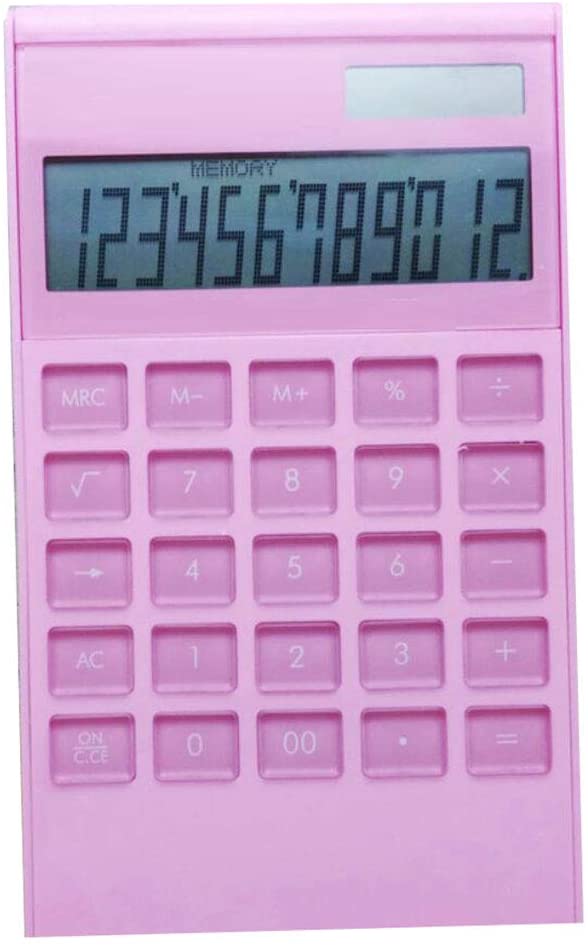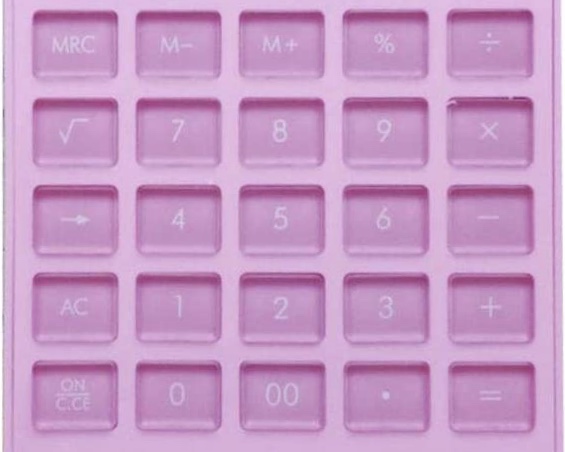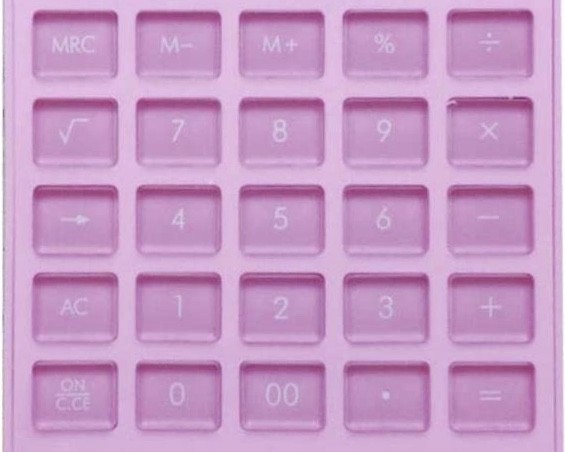
Sorry for the low quality image. This font feels pretty nostalgic, maybe that's because there are very similar fonts around but at each font there are subtle differences but the most occuring one is the 6.
4 seems to have sharp corners, 8's bottom circle is bigger, 9 doesn't seem to be 6 upside down...
Without a higher-res image, hard to know if it is Futura, Twentieth Century, Metro, or something customized for this manufacturer.
In your sample, the 7 has a shorter horizontal stroke and the 2 is more top heavy than in any of the typefaces listed above, but I would put Metro at the top of the list for most similar.